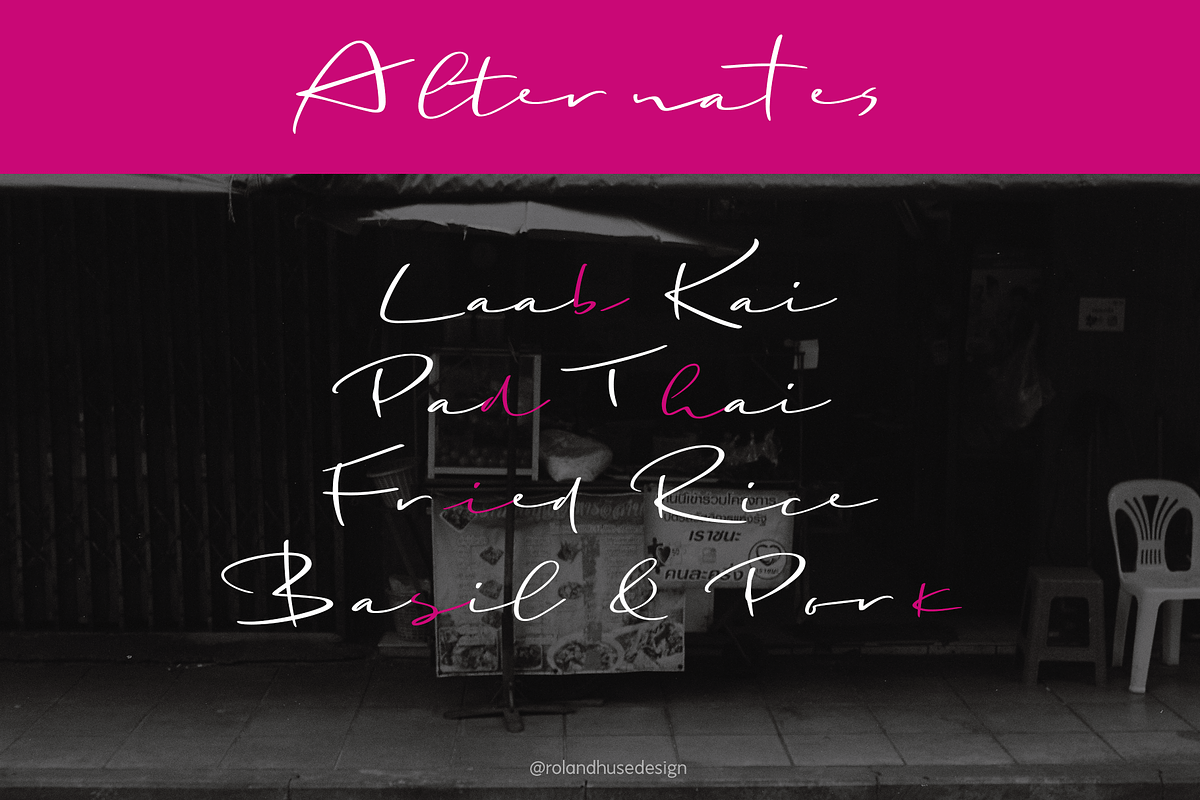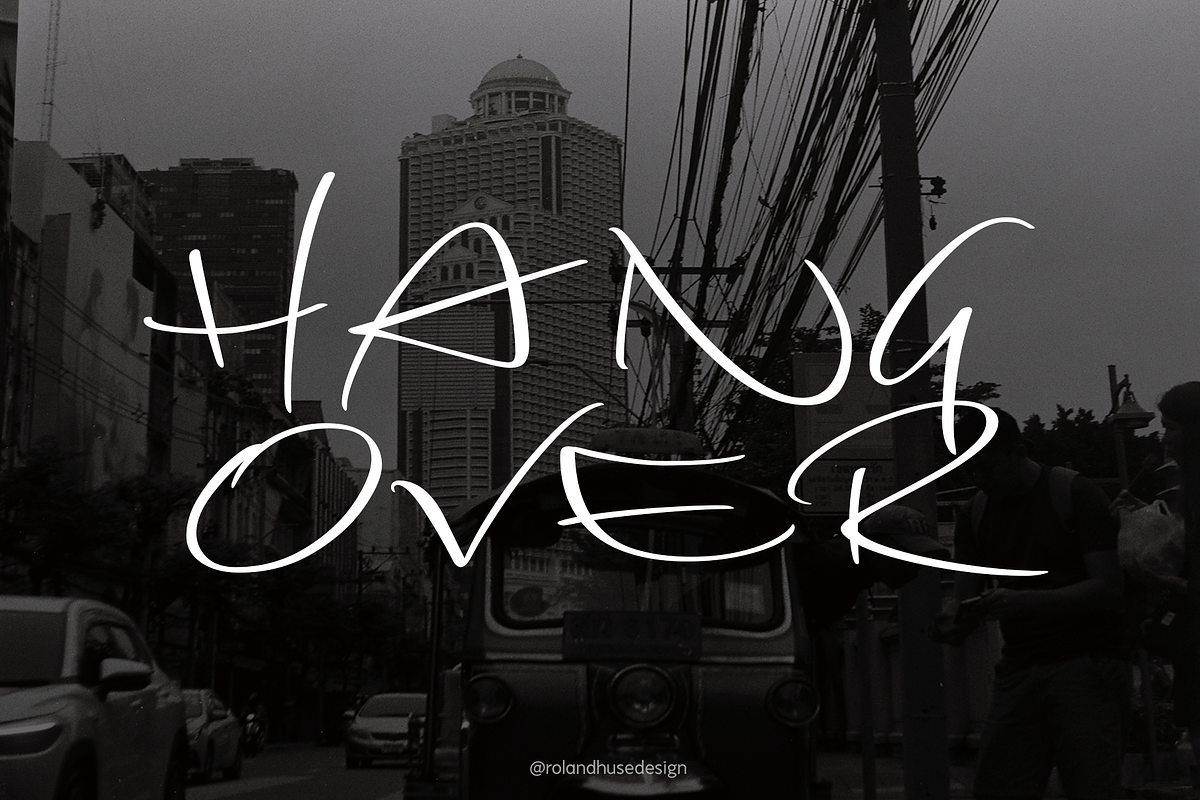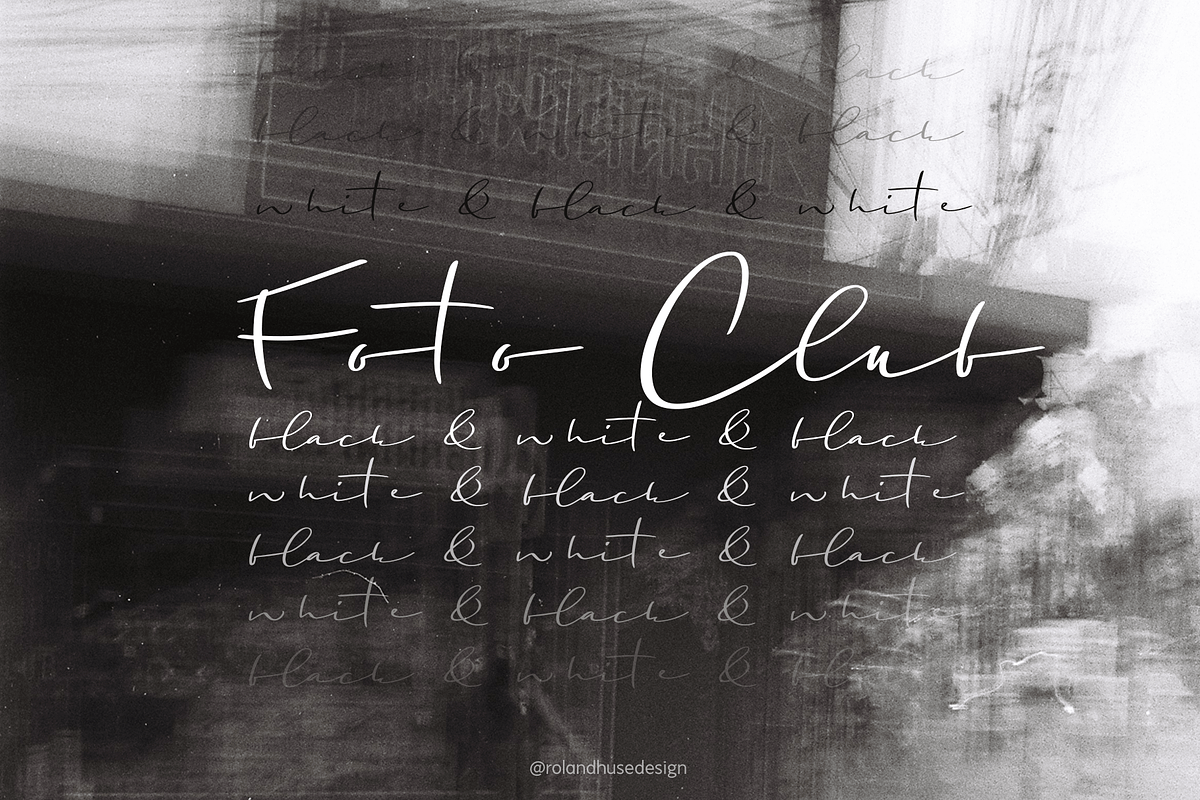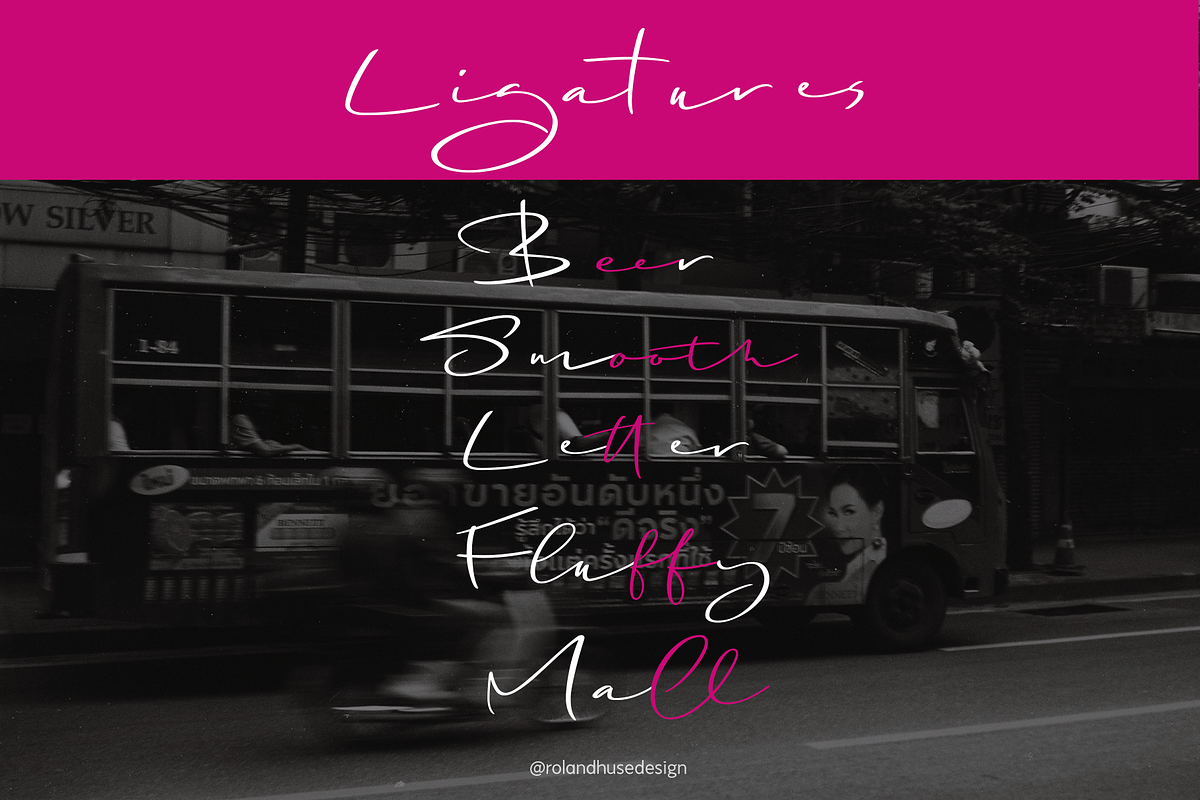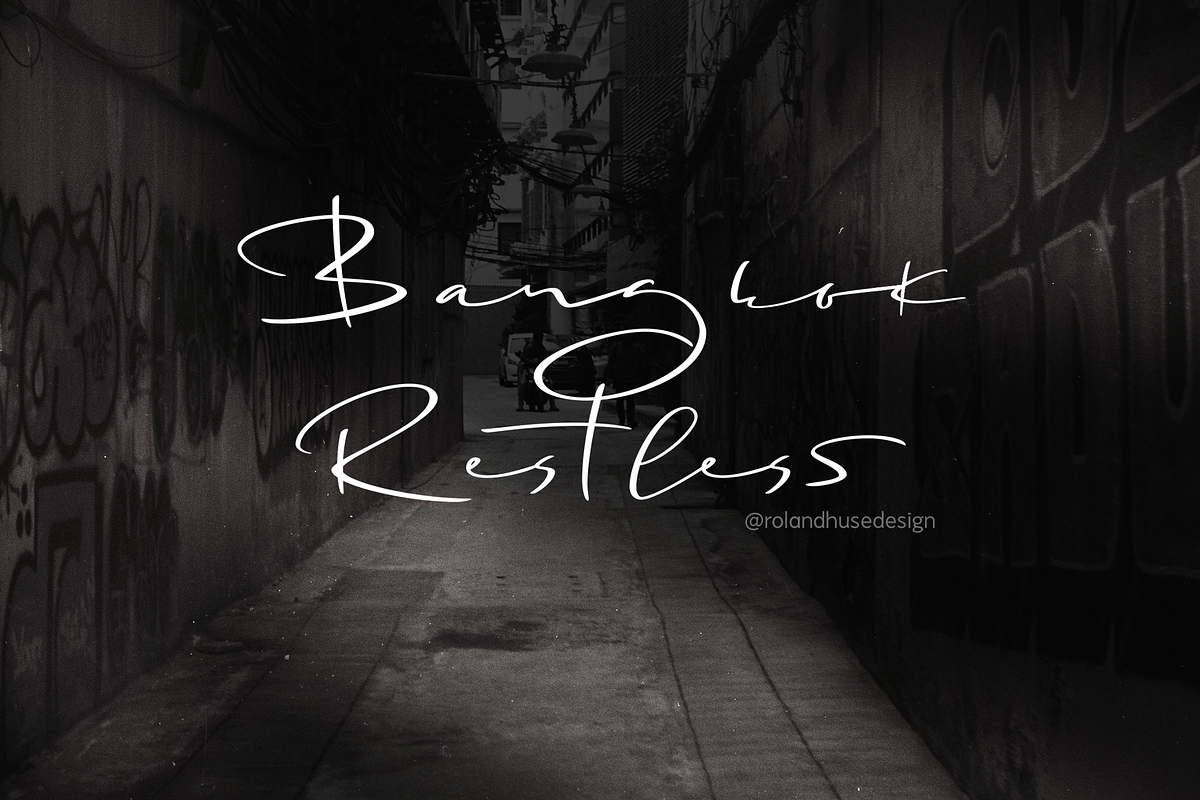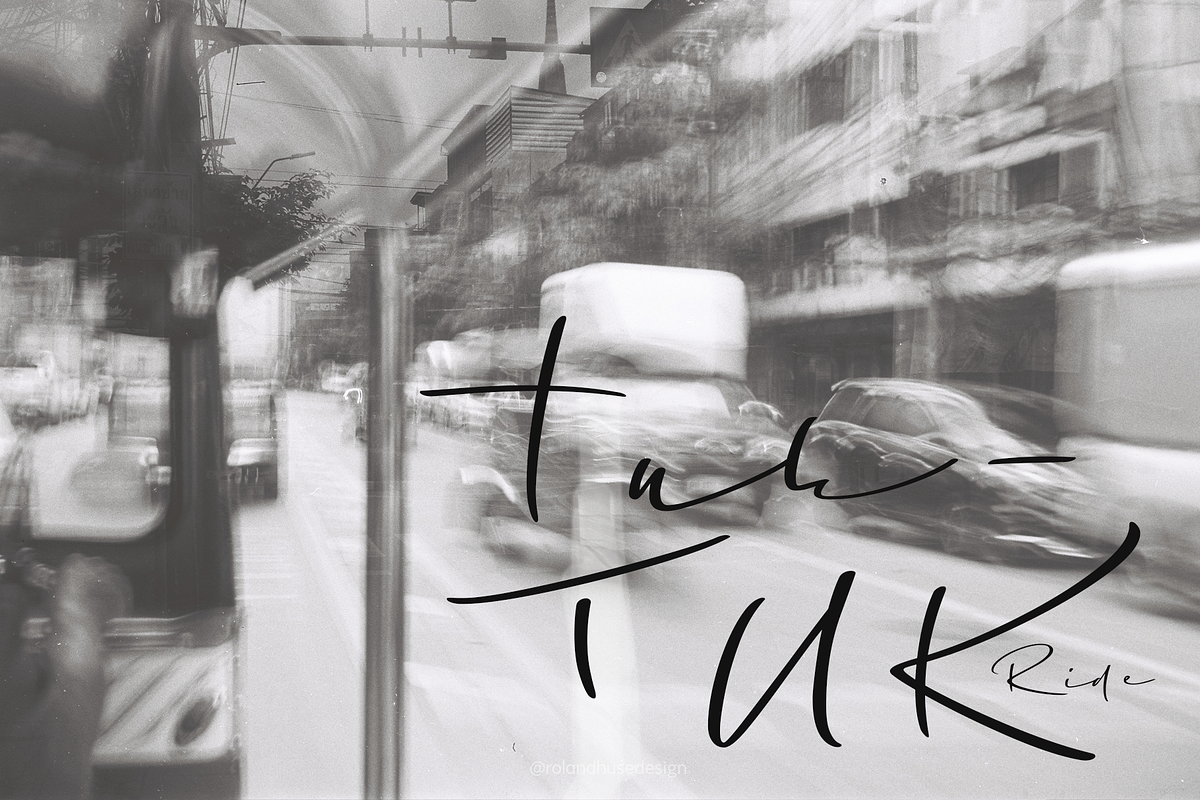
Bangkok Restless Handwriting
I have been walking around the streets of Bangkok with my good old film camera taking photos the way like back in the day. I think there is something magical and authentic in it. Guess what, the first day I went out with that camera I stumbled upon a place is called Fotoclub BKK they develop film rolls how cool is that! I shoot all the 36 photos at the Silom area, taking random photos most came out off centred subject, wrong settings, blurry just like the way I wanted! Soon after I was working on a handwritten script that is a perfect match to the overall topic of my stay in Bangkok so I named it after this exceptional adventure I have had here. The font contains all European diacritics and special characters, some double letter ligatures and stylistic alternates for better flow and more organic and natural look. I hope you guys like it and it will add some spiciness to your next creative project!